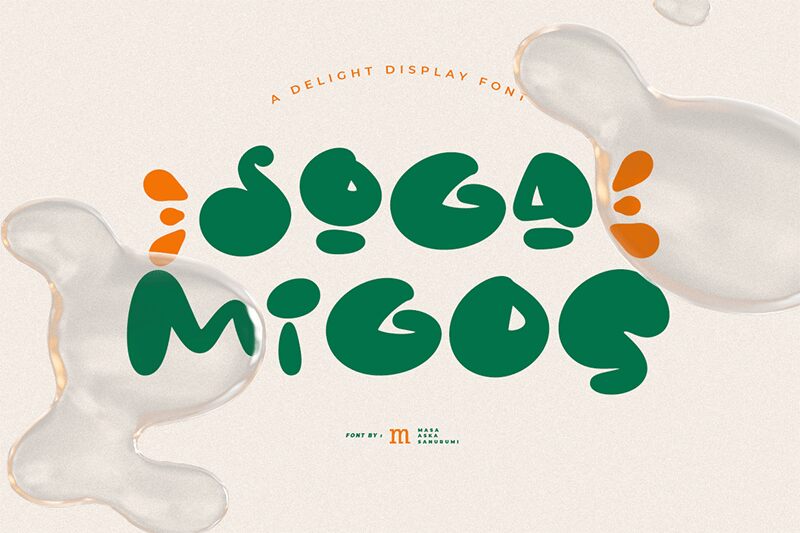
Soga Migos, a creation by Masa Aska Sanurumi, is a playful display font with a cartoon style that exudes charm and friendliness. Its bold and expanded characters are akin to the jubilant shapes found in animated storytelling, inviting a sense of whimsy and fun. The cheerful curves and ample letterforms of Soga Migos give it an approachable presence that can instantly lighten the mood of any project.
Ideal for children's books, party invitations, or any design that aims to spark joy and capture the imagination, Soga Migos stands out with its lighthearted appeal. Whether splashed across a colorful banner or nestled into an interactive website aimed at younger audiences, this font infuses every word with playfulness.